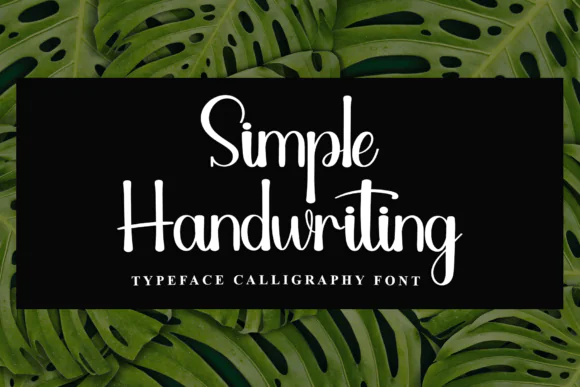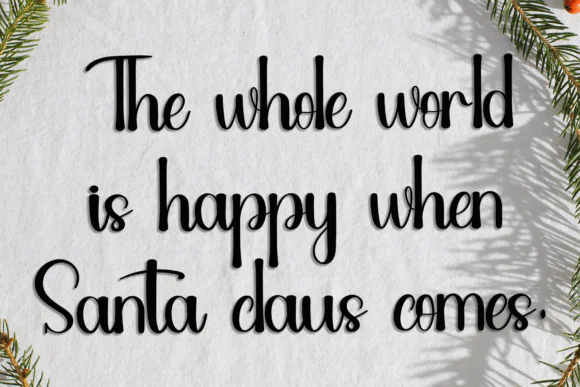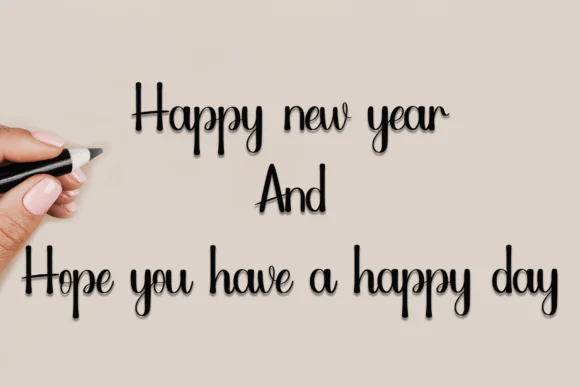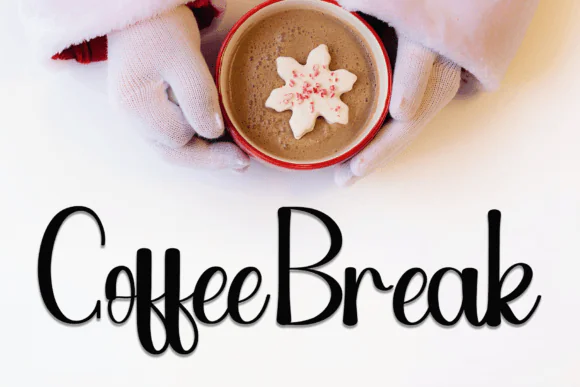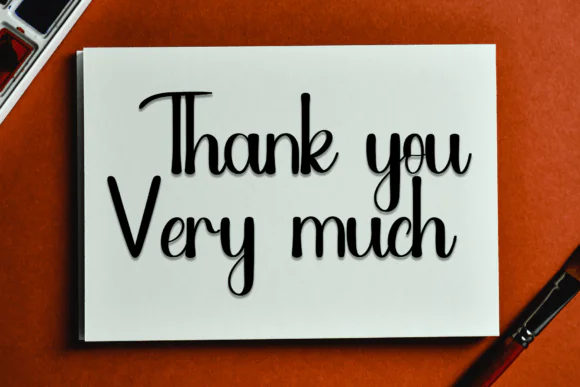
Simple Calligraphy Font | Festive Holiday Script Typeface with Glyphs & Ligatures for Greeting Cards, Gift Labels, Invitations & Christmas Designs
Create cheerful, festive, and charming holiday designs with Simple Calligraphy Font, a happy decorative typeface designed to capture the warm spirit of the holiday season. With its unique flair and beautiful decorative elements, this font brings a nostalgic and joyful look to your creative projects.
Simple Calligraphy is perfect for designers, crafters, small business owners, digital product sellers, and holiday creators who want to add a sweet handwritten touch to seasonal artwork. It works beautifully for greeting cards, gift labels, holiday invitations, Christmas tags, festive packaging, social media graphics, stickers, posters, quote designs, and more.
The font includes amazing glyphs and ligatures, giving you more creative flexibility for beautiful lettering, names, titles, and decorative text. It is also PUA coded, which makes it easier to access special characters and ligatures in compatible programs.
Design Style:
Festive, happy, calligraphy, decorative, cheerful, nostalgic, charming, holiday, playful, warm, elegant, seasonal, and expressive.
Use Simple Calligraphy Font to give your holiday designs a joyful handwritten personality and create festive typography that feels warm, charming, and memorable.